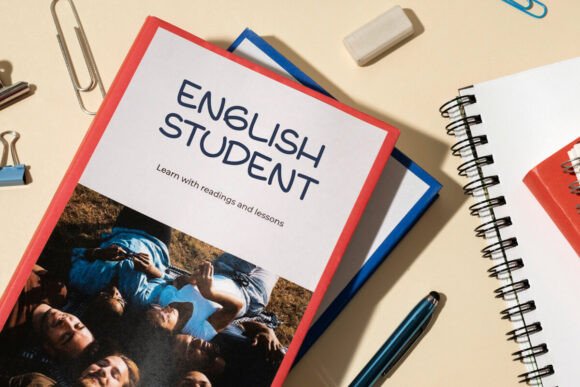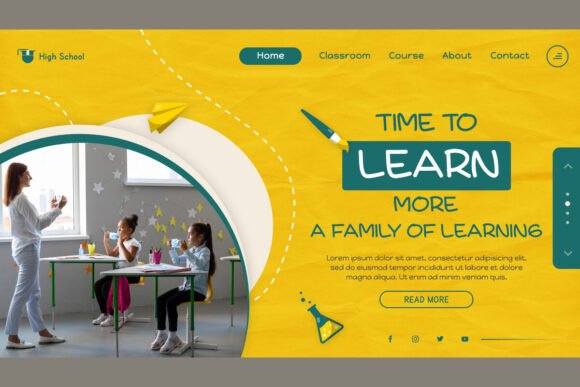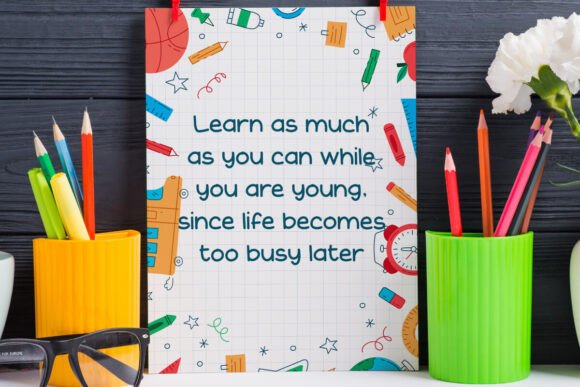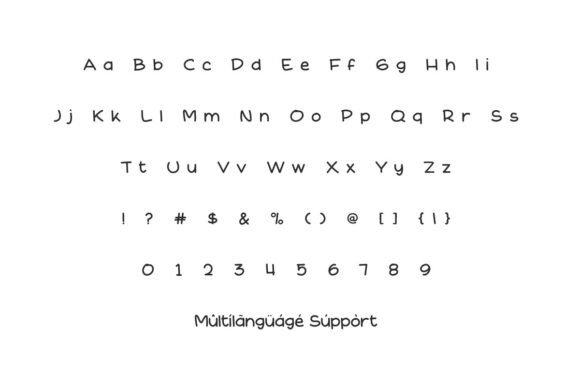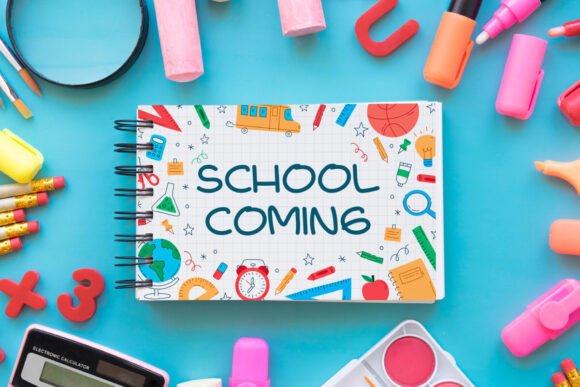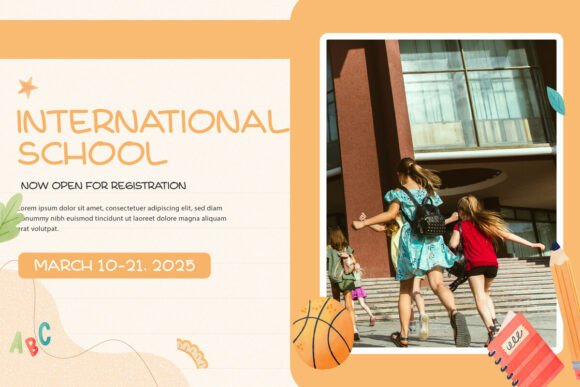
Introduction to School Coming Font
Do you remember the excitement of receiving a handwritten note from a friend or family member? The scribbled letters, the uneven lines, and the carefree spirit that comes with it – it’s a feeling that’s hard to replicate with digital communication. But, what if you could capture that same essence in your design projects? Enter the School Coming Font, a charming display font that’s sure to bring a smile to your audience’s faces.
As a designer, you’re always on the lookout for high-quality design resources that can elevate your creative projects. The School Coming Font fits the bill perfectly, with its playful letters and transparent background making it a versatile asset for any design. Whether you’re working on a brochure, a custom design, or even a simple invitation, this font is sure to add a touch of whimsy and personality to your work.
Key Features of School Coming Font
- Unique and Creative Design: This font is specifically designed for a school-themed project, making it perfect for educational materials, flyers, and brochures.
- Perfect for Educational Materials: School Coming Font is specifically designed for educational materials, making it an ideal choice for teachers, students, and educational institutions.
Honest Review: School Coming Font
As a designer, I’ve been on the hunt for the perfect font to add a touch of personality to my creative projects. Recently, I stumbled upon the School Coming Font, and I’m excited to share my honest review.
- The School Coming Font is incredibly versatile, making it suitable for a wide range of design projects.
- The high quality of the font is evident in its crisp, clear lines and smooth letterforms.
- The School Coming Font may not be suitable for projects that require a more formal or traditional font style.
- The font’s bold, playful nature may not appeal to designers looking for a more understated font.
Overall, I’m impressed with the School Coming Font. Its unique style and high quality make it an excellent addition to any design project. Whether you’re working on a creative project or just need a fresh font to spice up your design, the School Coming Font is definitely worth considering.
The School Coming Font is perfect for:
- School and education-themed designs
- Summer and back-to-school promotions
- Text overlays and effects in social media graphics
- Wedding and event invitations